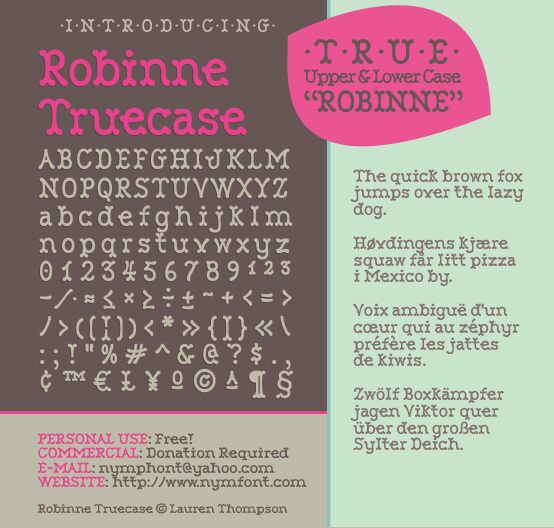
Robinne Truecase by Lauren Thompson of Nymfont is a free old-school decorative display font with soft-edged lettering. Its broad curves narrow abruptly into pinched joins and small bulbous tips. Uneven stroke widths give the letters a lively, hand-cut quality.
Sweet-shop packaging and indie music posters suit its rounded exuberance. It also fits children's publishing and cheerful event graphics. In a logo, the curled tips can turn the lettering into a playful emblem rather than neutral type.
Robinne Truecase
Lauren Thompson (Nymfont/Nymphont)
Just a little bit of hand-drawn nostalgic goodness.